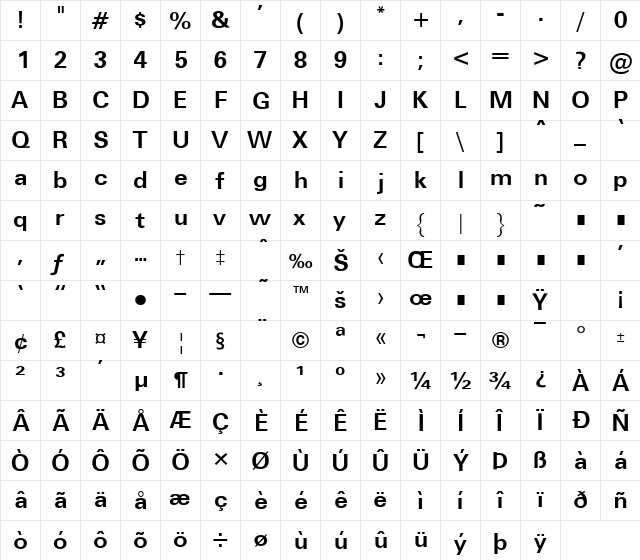
Unv Bold
Design Context for Unv Typeface
Unv offers clean, dependable letterforms without strong stylistic allegiance, making it a practical choice for designers who need flexibility. Its bold stroke weight gives it real presence on the page.